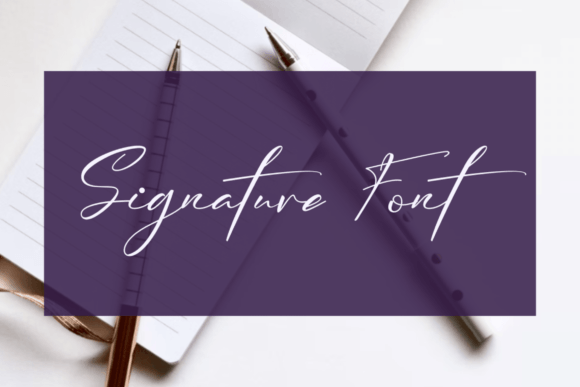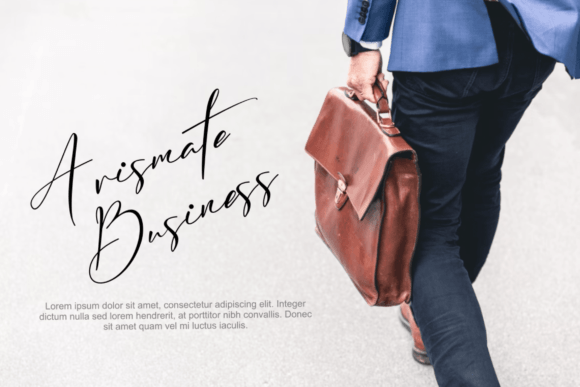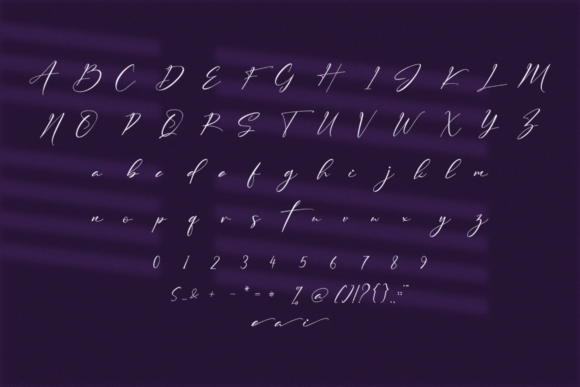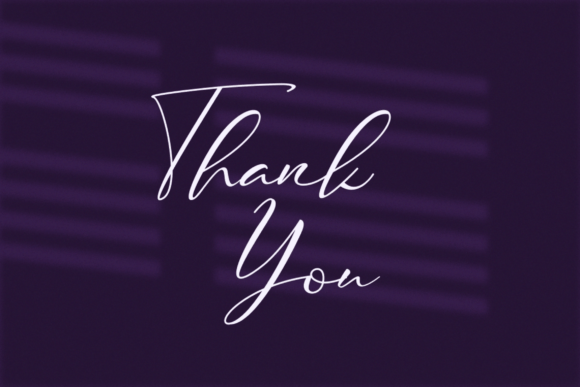
Introduction to Baitae Tahage Font
Do you remember that moment when you’re brainstorming ideas for a project and suddenly, a spark of creativity hits you? The excitement is palpable, and you can’t wait to bring your vision to life. For designers, this feeling is what drives us to create something truly unique and memorable. And, that’s exactly what the Baitae Tahage Font is designed to help you achieve.
As a high-quality design resource, the Baitae Tahage Font is a bold and authentic script font that’s perfect for any branding project. Whether you’re looking to create a stunning logo, print t-shirts, or export your design, this font will look outstanding in a wide range of contexts. With its transparent background, it’s also easy to use and customize to fit your creative project’s needs.
Key Features of Baitae Tahage Font
- Transparent background for seamless integration with various designs
- Unique, modern design making it perfect for contemporary projects
- Supports a wide range of languages, making it a versatile design resource
Honest Review: Baitae Tahage Font
I recently stumbled upon the Baitae Tahage Font, and I’m excited to share my thoughts on this design resource. As a designer, I’m always on the lookout for high-quality fonts that can elevate my creative projects.
Here’s what works well: ✨ The Baitae Tahage Font is free to download, which is a huge plus for designers on a budget. It’s also available in a variety of weights and styles, making it a versatile addition to any design project. The font features a transparent background, which is perfect for overlaying text on images or using as a design element in its own right.
Here are some of the key features I’ve noticed:
- High-quality design with a unique aesthetic
- Available in a range of weights and styles
- Transparent background for easy overlaying on images
My only gripe is that the font may not be suitable for all types of projects. ⚠️ For example, the font’s unique style may not be the best choice for formal or traditional designs. Additionally, some users may find the font’s transparent background to be a bit glitchy in certain applications.
Overall, I’m impressed with the Baitae Tahage Font. It’s a great addition to any designer’s toolkit, and I’m happy to recommend it to my fellow designers. Whether you’re working on a creative project or just looking for a unique design element, the Baitae Tahage Font is definitely worth checking out.
To get the most out of the Baitae Tahage Font, use it in conjunction with a transparent background to create a high-quality design resource. Experiment with different font sizes, colors, and styles to add creativity to your project.
The Baitae Tahage Font is ideal for creative projects, such as logo design, brochure design, and social media graphics. Its high-quality design and transparent background make it perfect for use in a variety of design applications.